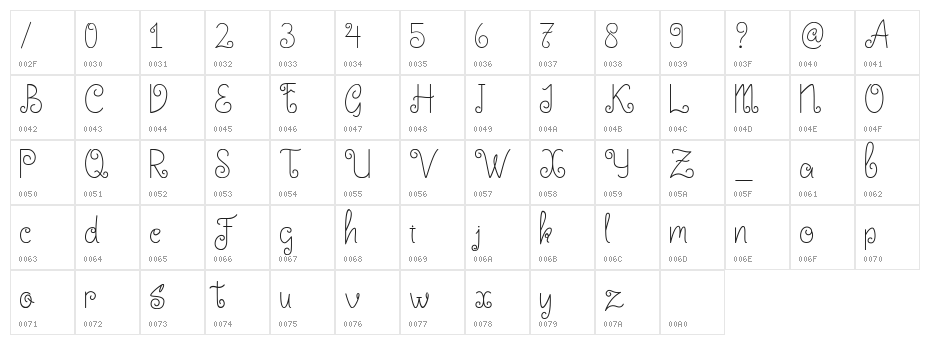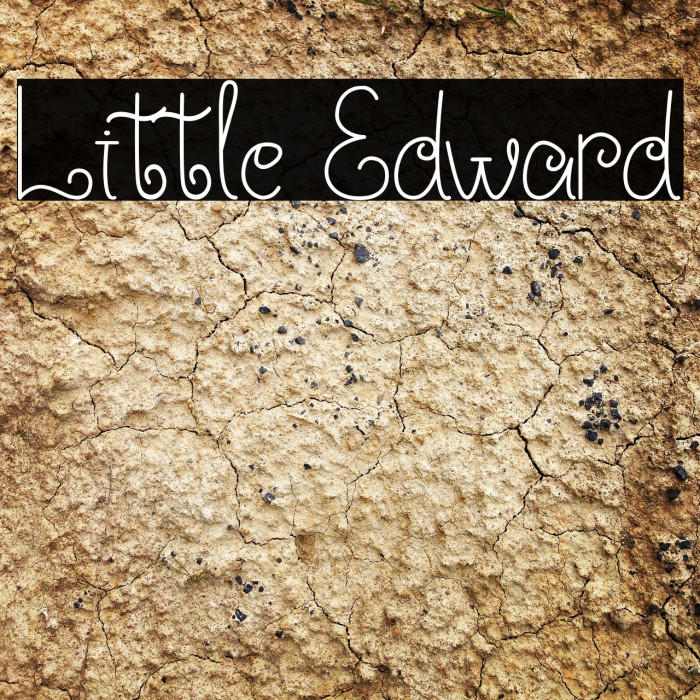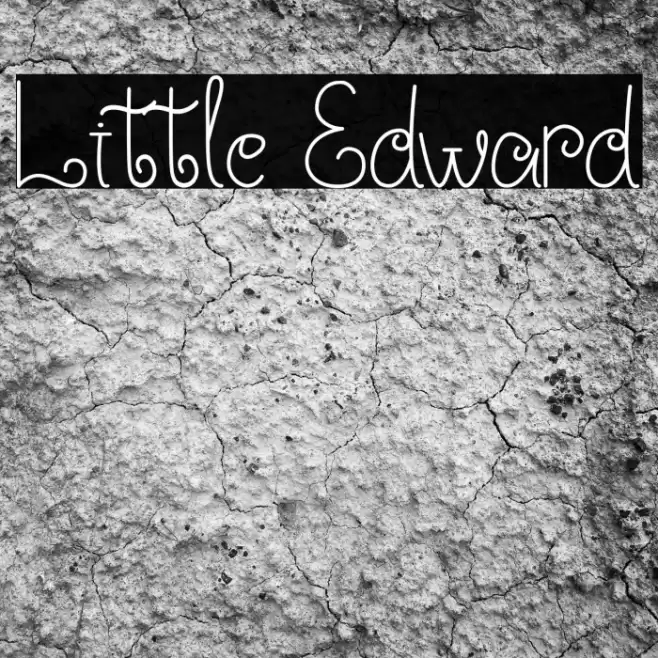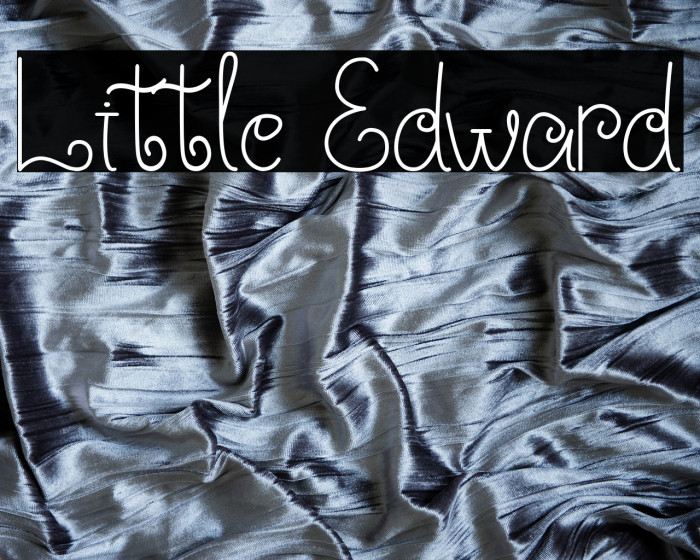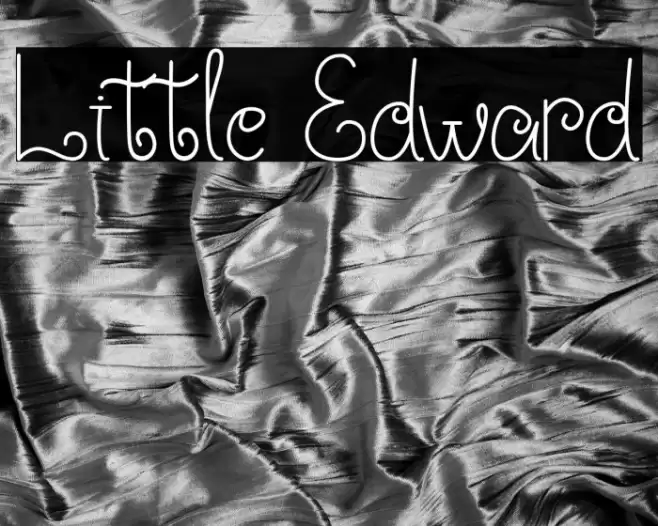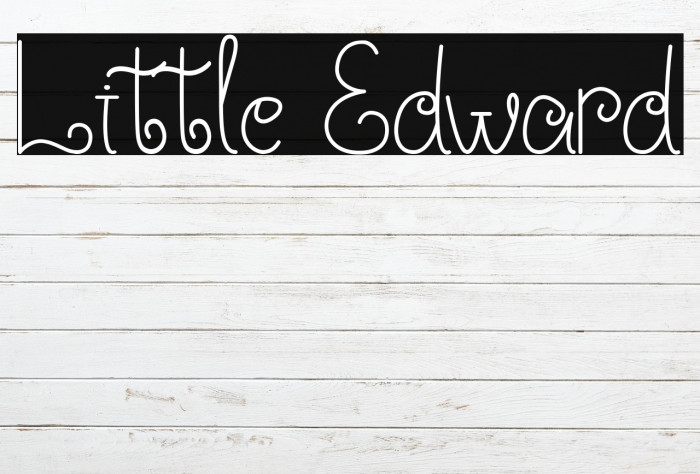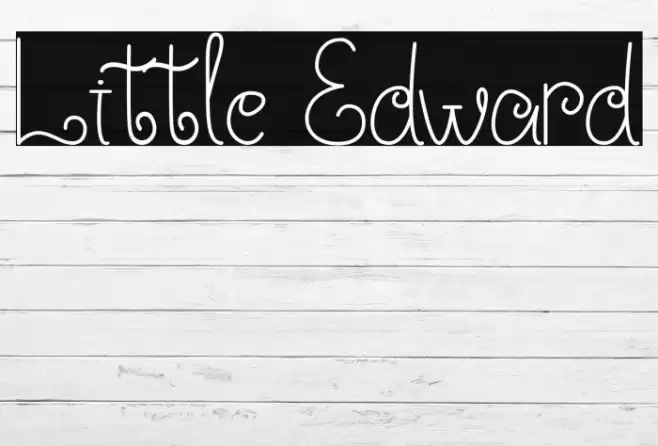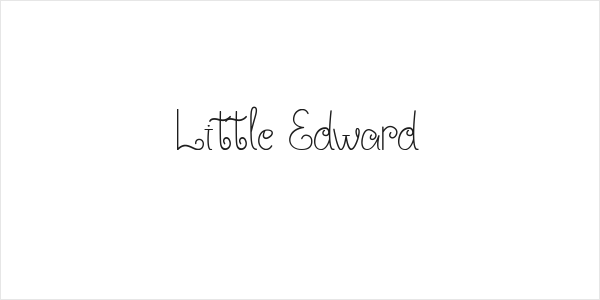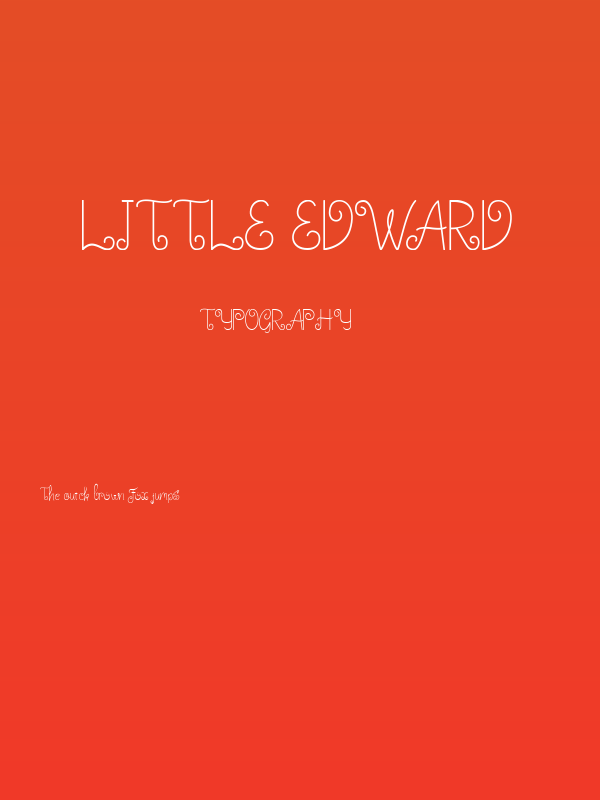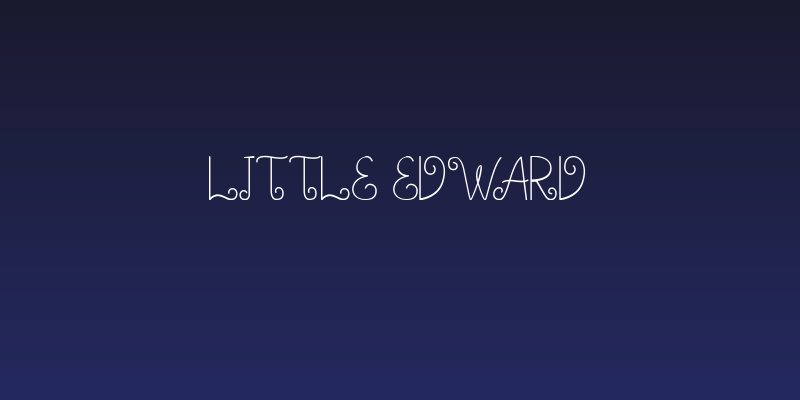
Little Edward Font
Little Edward Description
This font features a whimsical and playful design with a unique curly and swirly style that adds a touch of elegance and fun. The uppercase letters are adorned with decorative loops and flourishes, giving them a distinctive and artistic appearance. The lowercase letters maintain a similar style, with consistent curves and embellishments that create a harmonious look. The numerals are equally stylized, incorporating the same playful elements. This font is perfect for projects that require a touch of creativity and flair, such as invitations, greeting cards, or children's book covers. Its decorative nature makes it stand out, while still maintaining legibility.
| Proposed Projects | Ideal for invitations, greeting cards, children's books, and creative branding. |